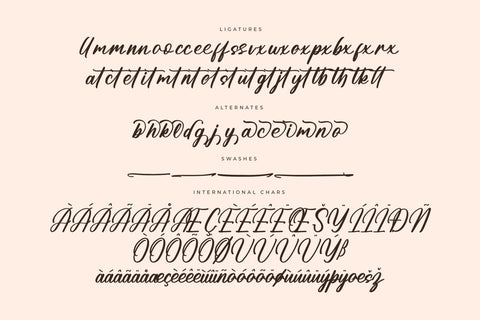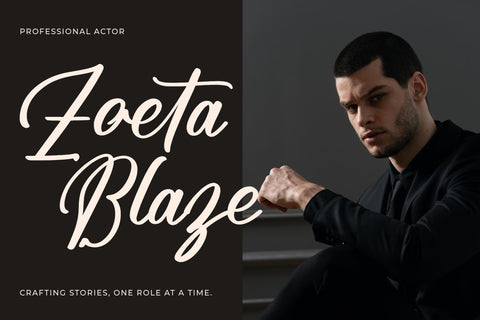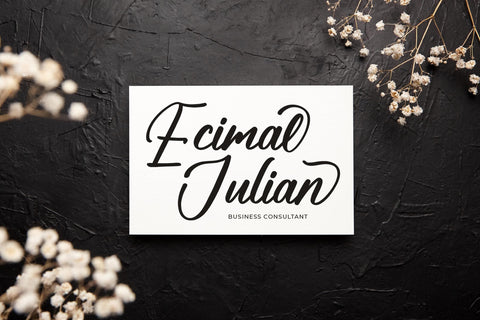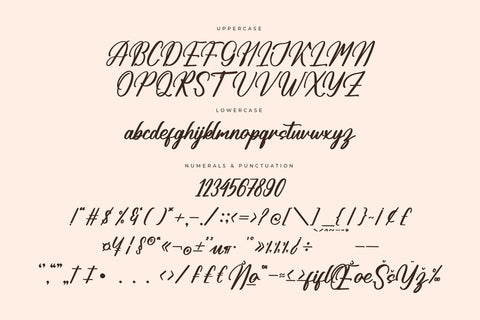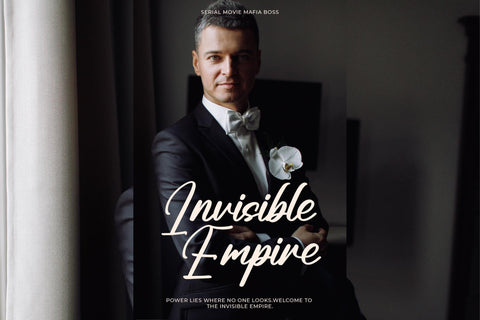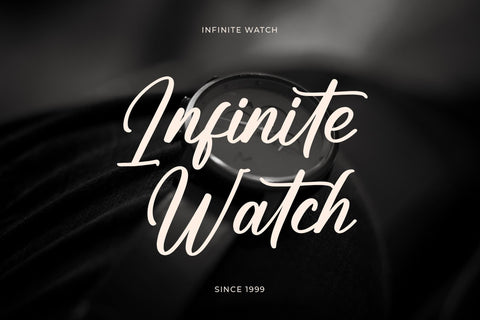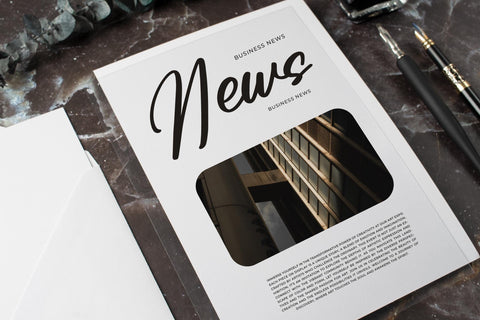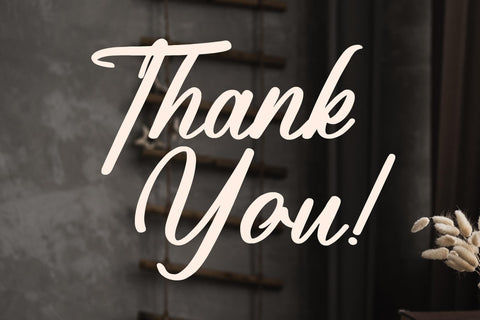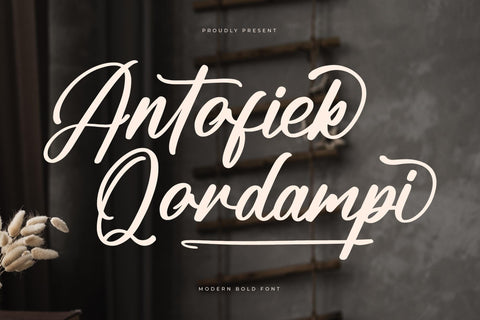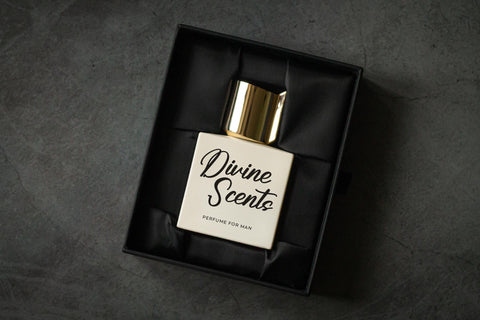
Antofiek Qordampi - Modern Bold Font
Antofiek Qordampi - Modern Bold Font , from Letterena, is a Luxury Script font, suitable for any projects such as: logos, branding projects, homeware designs, product packaging, mugs, quotes, posters, shopping bags, t-shirts, book covers, name card, invitation cards, greeting cards, label, photography, watermark, special events, and all your other luxury and beautiful projects that need a Luxury Script taste.